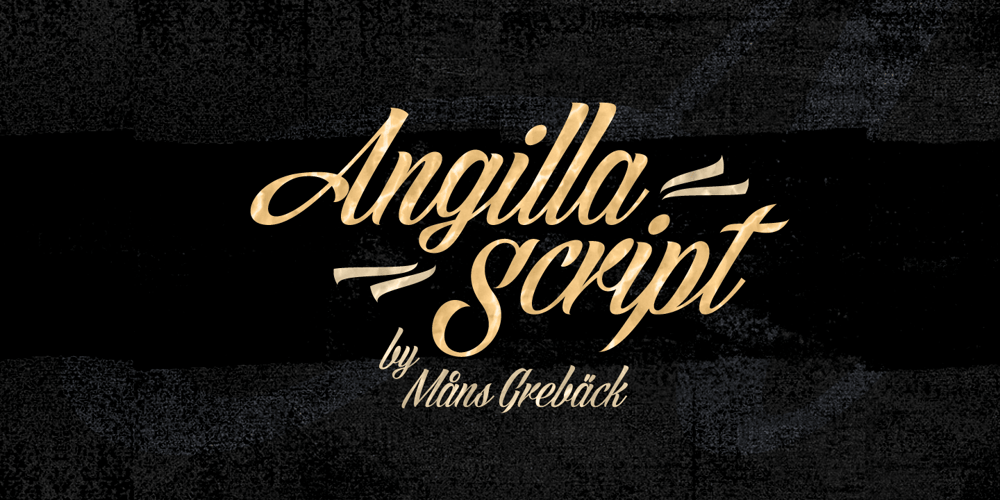
Angilla Script
Angilla Script font
Angilla Script Font Family was designed by Måns Grebäck and published by Mans Greback. Angilla Script contains 1 styles and family package options. Angilla Script is a tattoo inspired calligraphy typeface. It was drawn and created by Måns Grebäck during 2019 and 2020.While having a feminine flow, it has confidence, attitude and dare. Use it for a concert poster, a logotype or to give any project a bit of extra personality. It has an extensive lingual support, covering European and Asian Latin scripts. The font contains all characters you’ll ever need, including all punctuation and numbers.